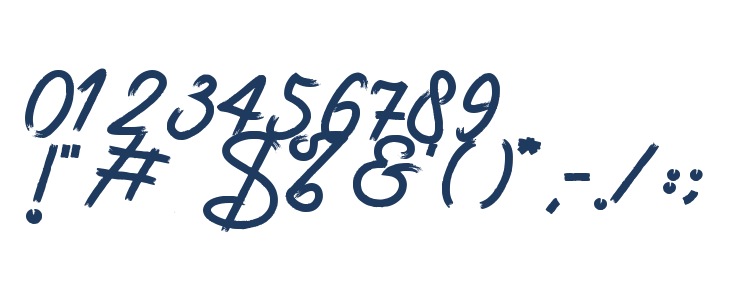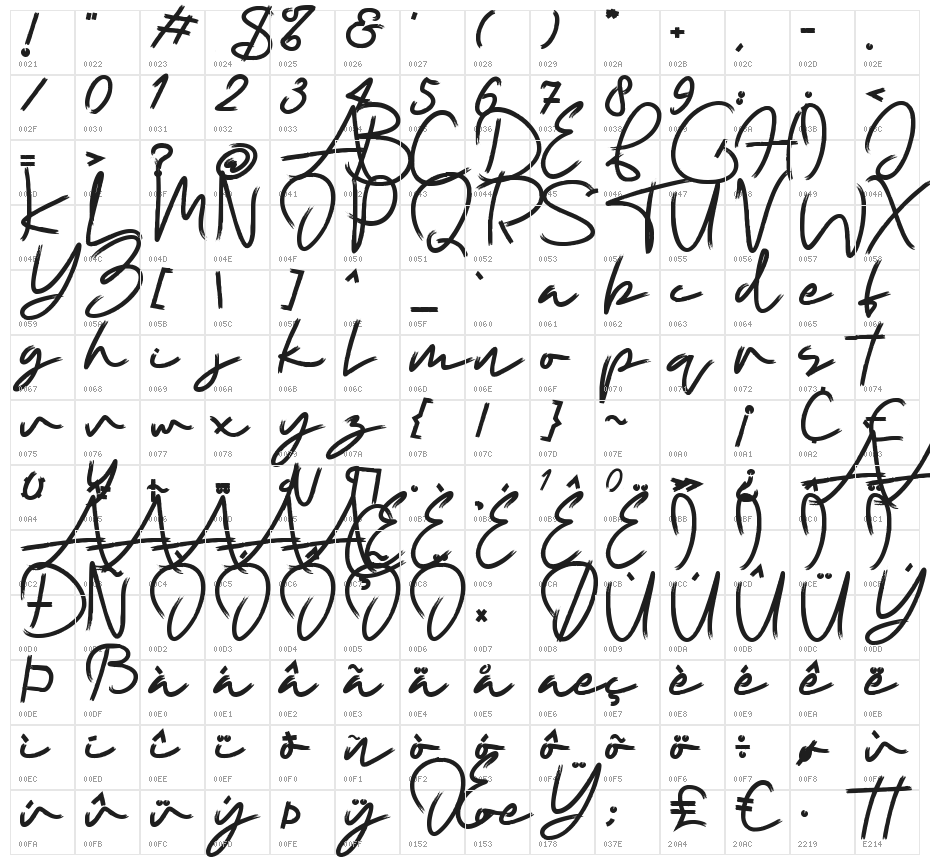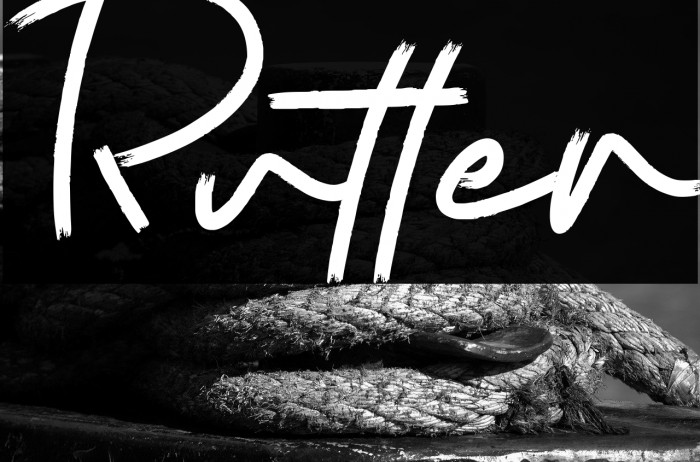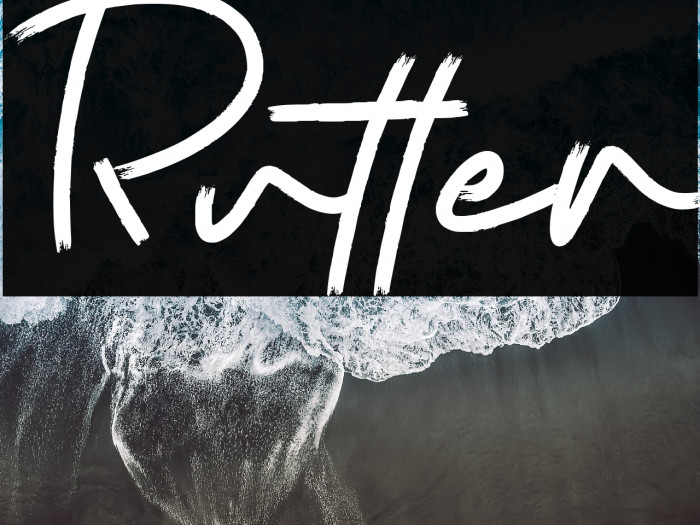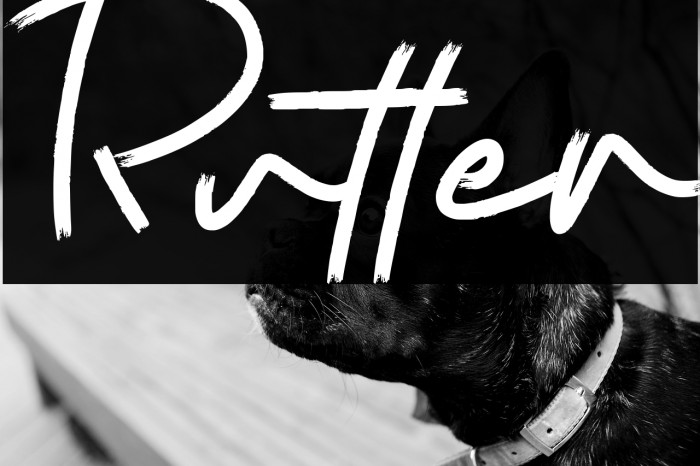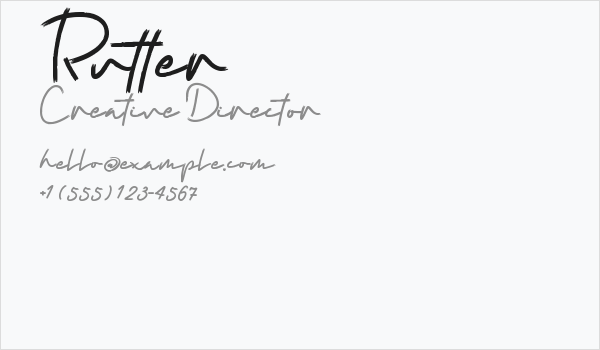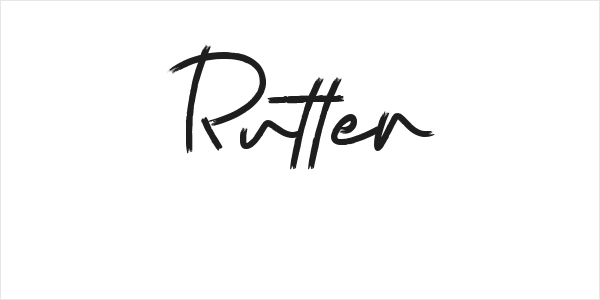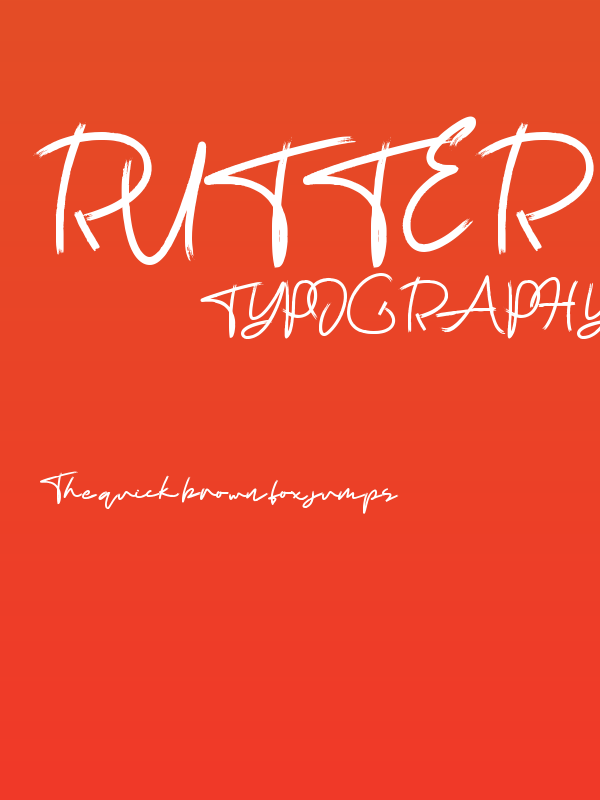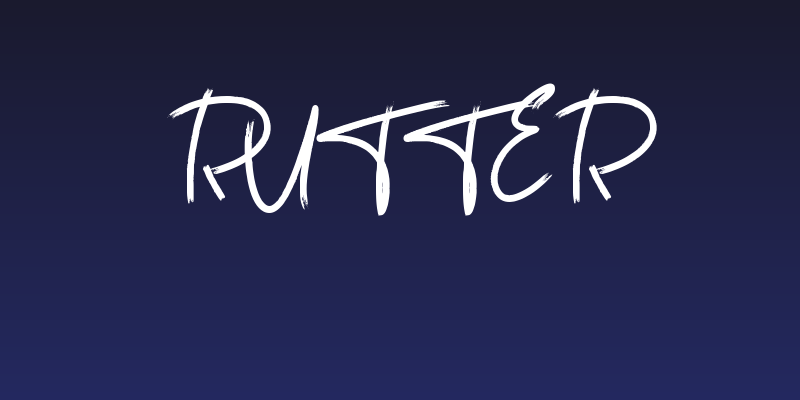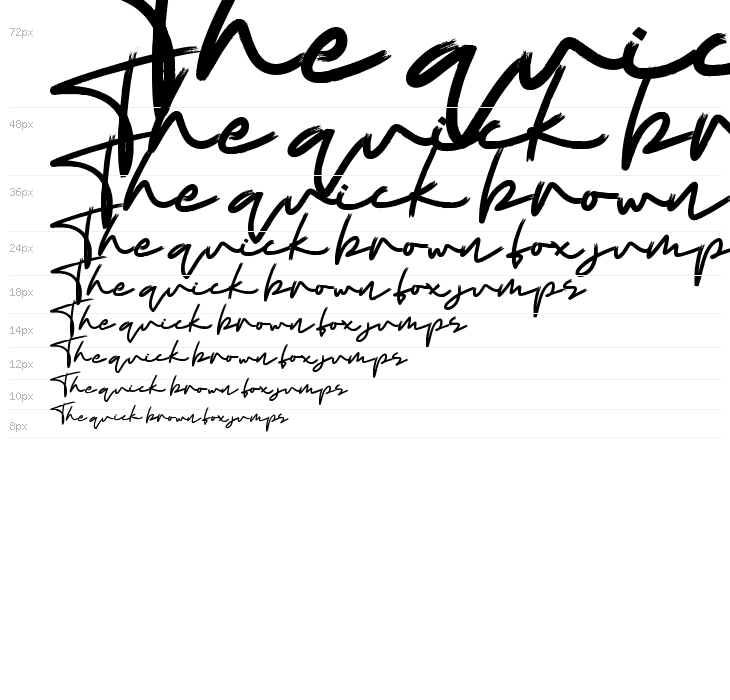
Rutter Font
Rutter Description
This font features a dynamic and expressive handwritten style, characterized by its fluid strokes and artistic flair. The uppercase letters are bold and slightly slanted, giving a sense of movement and energy. The lowercase letters maintain a consistent flow, with some characters extending below the baseline, adding to its casual and informal appearance. The numerals are bold and clear, ensuring readability. Special characters are creatively designed, complementing the overall aesthetic. This font is perfect for projects that require a personal touch or a creative edge.
| Use Case | Logos, Headlines, Creative projects |
| Proposed Projects | Ideal for branding, invitations, greeting cards, and creative projects that require a personal touch. |